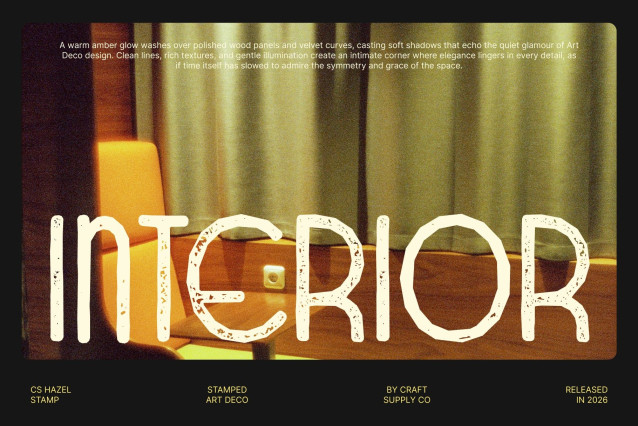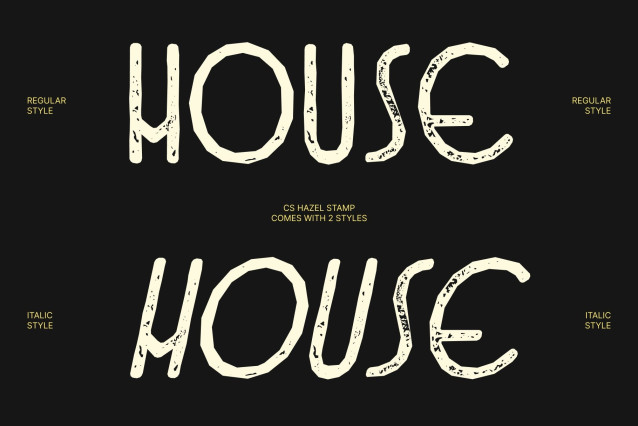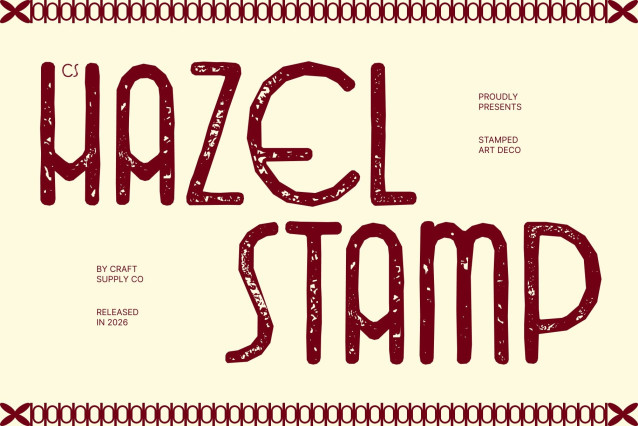
CS Hazel Stamp Font
CS Hazel Stamp – A Luxurious Blend of Modernity and Art Deco Elegance
Art Deco-Inspired Modern Sans Serif with Stamped Texture
This is a modern sans serif font that combines minimalist geometry with the decorative sophistication of Art Deco. Enhanced with a subtle stamp texture, it introduces a tactile, vintage-inspired finish that enriches its clean and luxurious design.
Geometric Precision with Timeless Style
Defined by sharp lines and balanced geometric forms, this font captures the elegance of the Art Deco era while maintaining a contemporary edge. The stamped effect adds depth and character, evoking a sense of craftsmanship and nostalgic print aesthetics.
Elegant Design for Versatile Applications
Its refined structure allows this font to adapt seamlessly across branding, advertising, editorial layouts, and luxury packaging. The combination of modern clarity and textured detailing makes it ideal for high-end visual identities that require sophistication and presence.